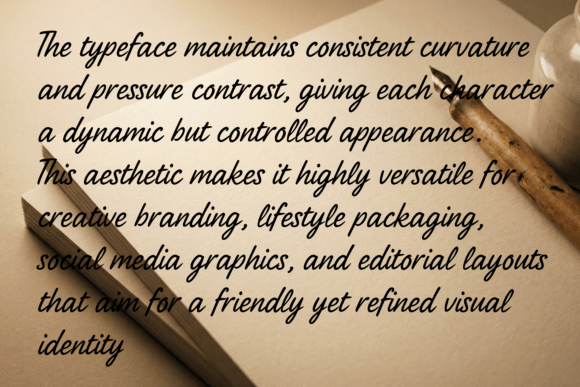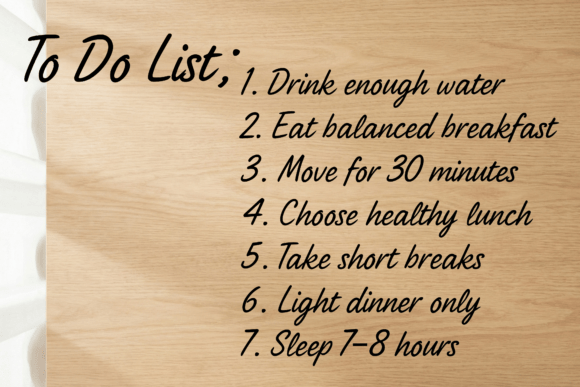
Introduction to Hand Huruf Letter Miring Font
Hand Huruf Letter Miring is a fluid, handwritten script typeface designed to evoke a sense of personal touch, motion, and expressive rhythm.
Its strokes flow with natural slanting energy, creating an impression of swift handwriting that balances elegance with informality The typeface maintains consistent curvature and pressure contrast, giving each character a dynamic but controlled appearance.
Why Choose Hand Huruf Letter Miring Font?